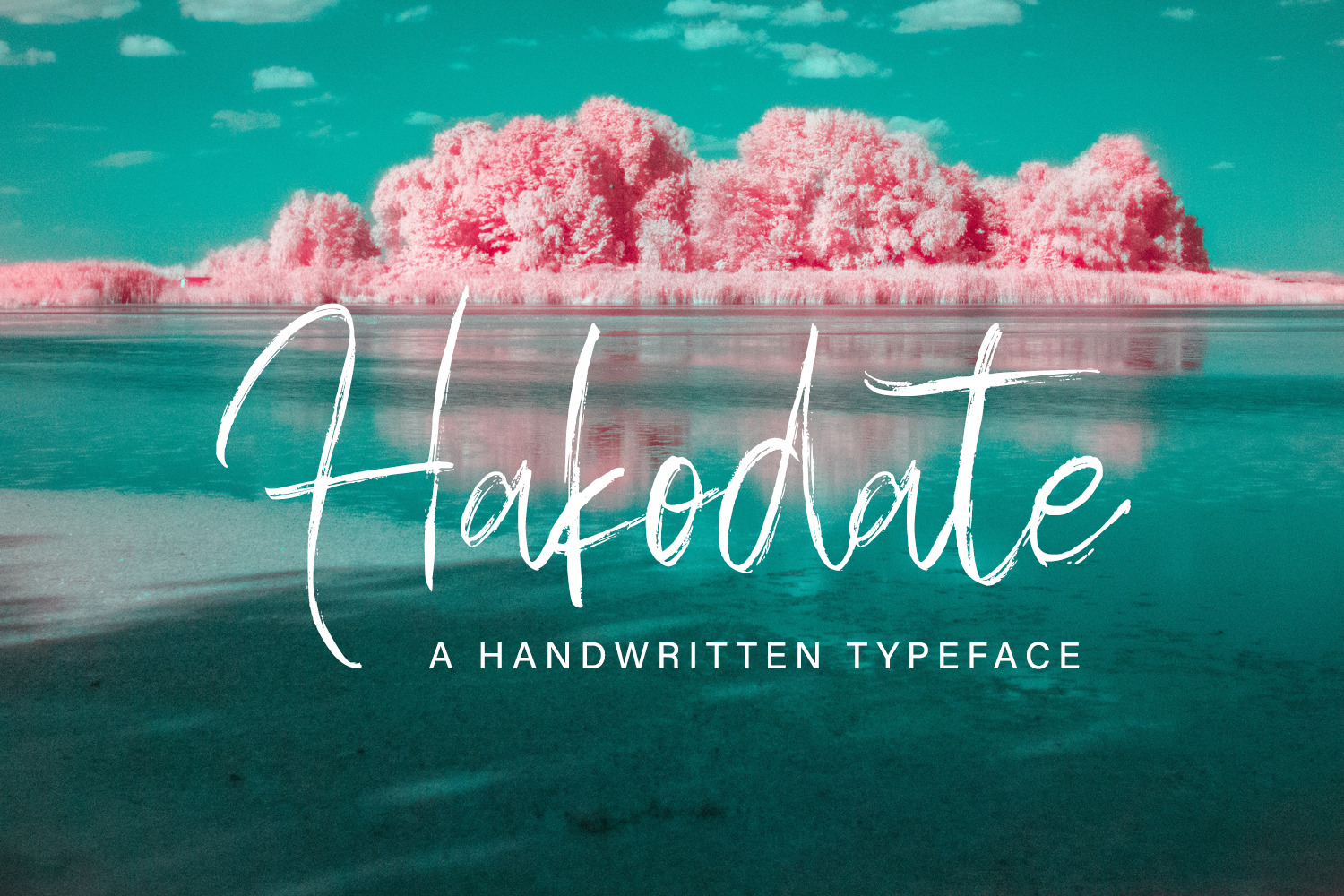
Hakodate - Handbrush Typeface
Hakodate Handbrush Script Font is a font with distinctive handwritten characters perfect for branding projects, logos, wedding designs, media posts, advertisements, product packaging, product designs, labels, photography, watermarks, invitations, stationery, and any project who need handwritten dishes.